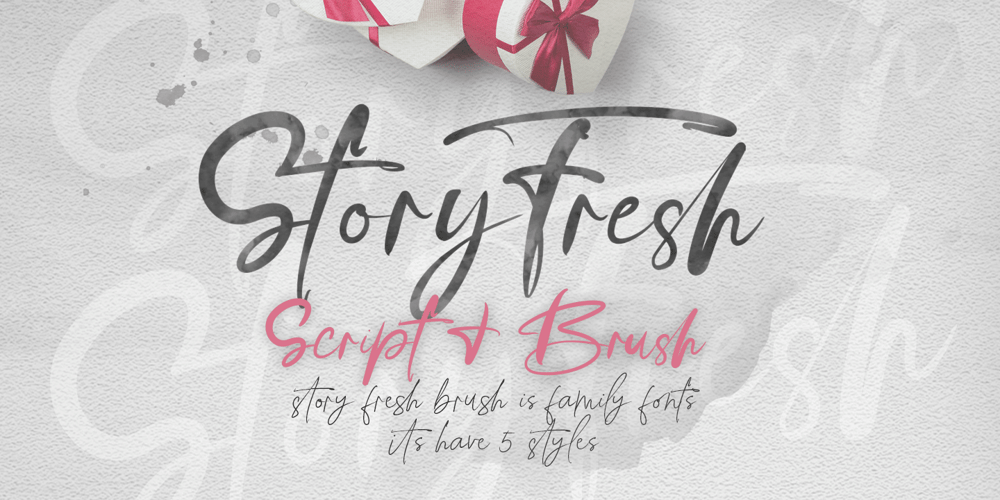
Story Fresh Font Family was designed by Roiyani Teungku and published by Artisan Studio. Story Fresh contains 5 styles and family package options. Story Fresh is a family script font, with 5 styles: brush, bold, medium, normal and light. Story Fresh a work that is purely handmade, has its own characteristics with the style of monoline. this is perfect for invitations, signatures, blogs, social media, business cards, product brands. FILE INCLUDE – Story Fresh Brush (OpenType,PUA) – Story Fresh Bold (OpenType,PUA) – Story Fresh Medium ( OpenType,PUA) – Story Fresh Normal ( OpenType,PUA) – Story Fresh Light ( OpenType,PUA) OpenType features can be accessed by using OpenType smart programs such as Adobe Photo Shop, Adobe Illustrator, Adobe Indesign, Corel Draw and Microsoft Office. special greetings for all, all of us all smoothly in running the routin